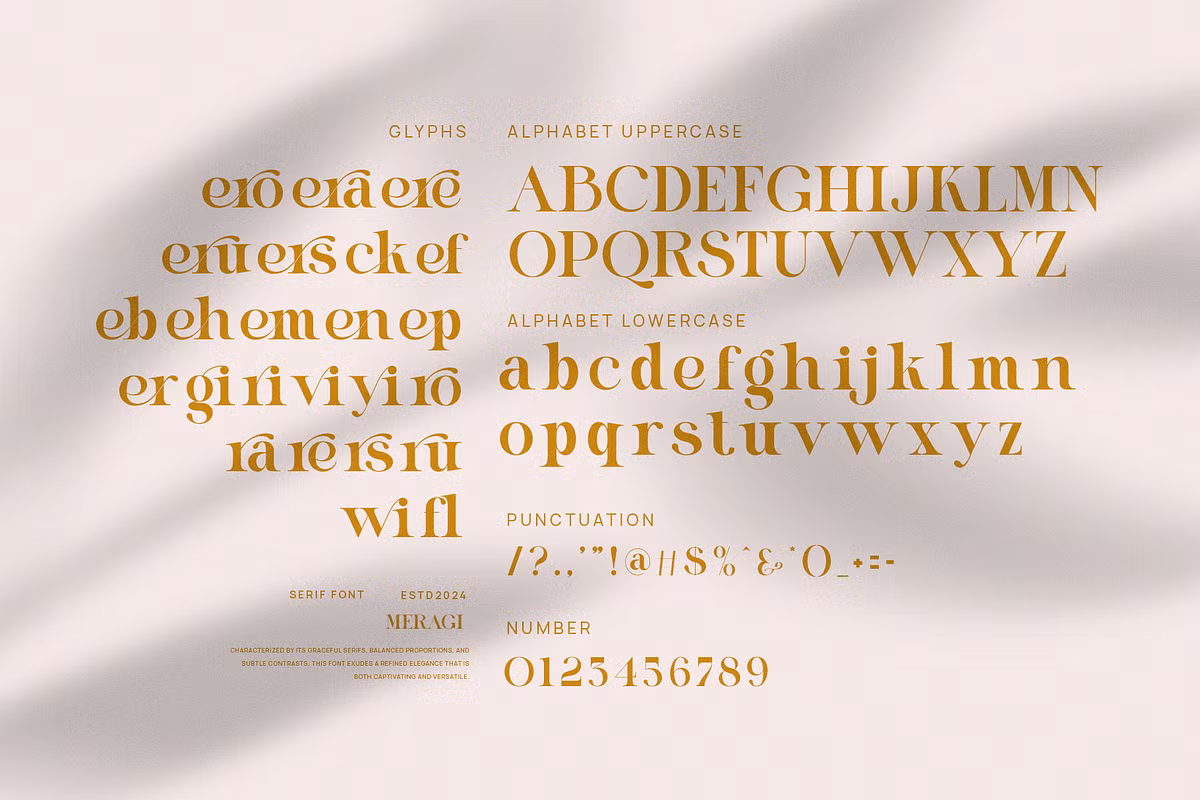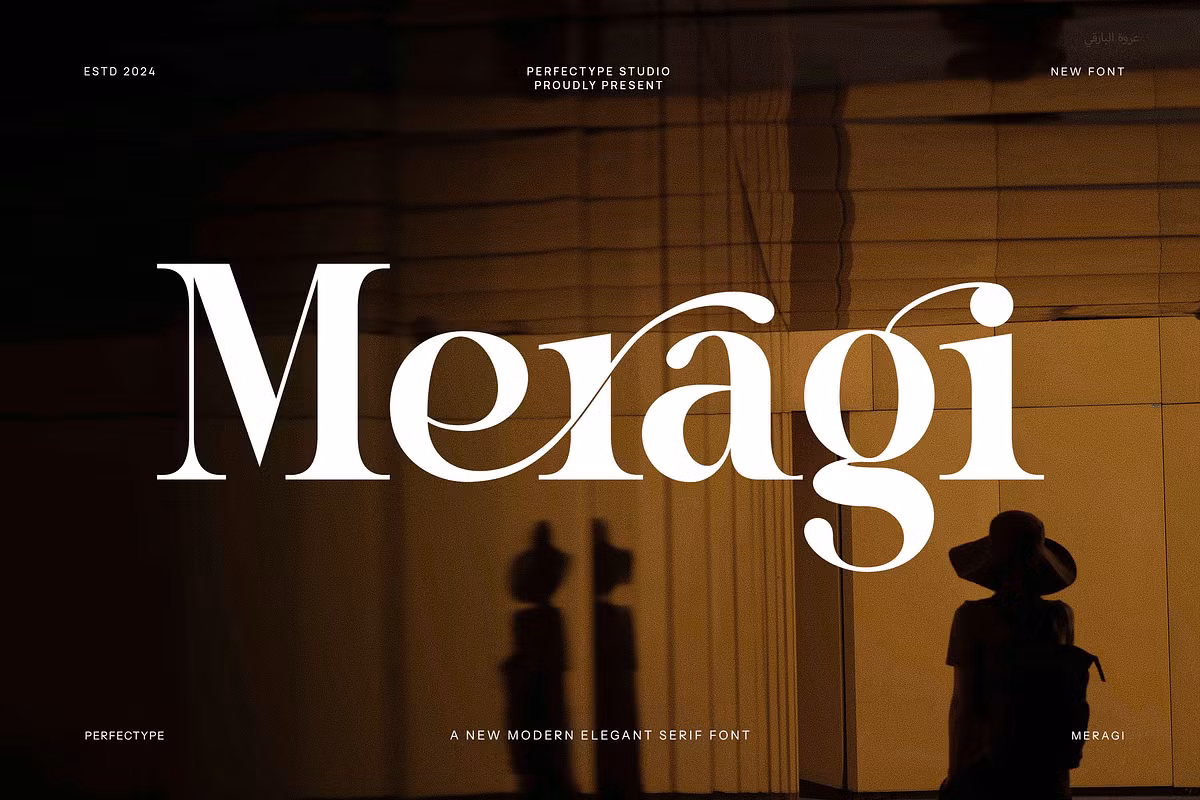
Meragi Font
Meragi Font is a very creative and beautiful font for all branding and logo designs This type of serif font for all types of branding and logo designs is manufactured out with elegance and luxury Therefore very suitable for all your designs. Actually, this type of font is ideal for your various necessities such as branding projects, logos, social media, promotional materials, labels, product, packaging, photography, wedding designs, watermark, invitation product designs, stationery, and any other project that utilizes exceptionally high legibility.
Meragi Serif Font